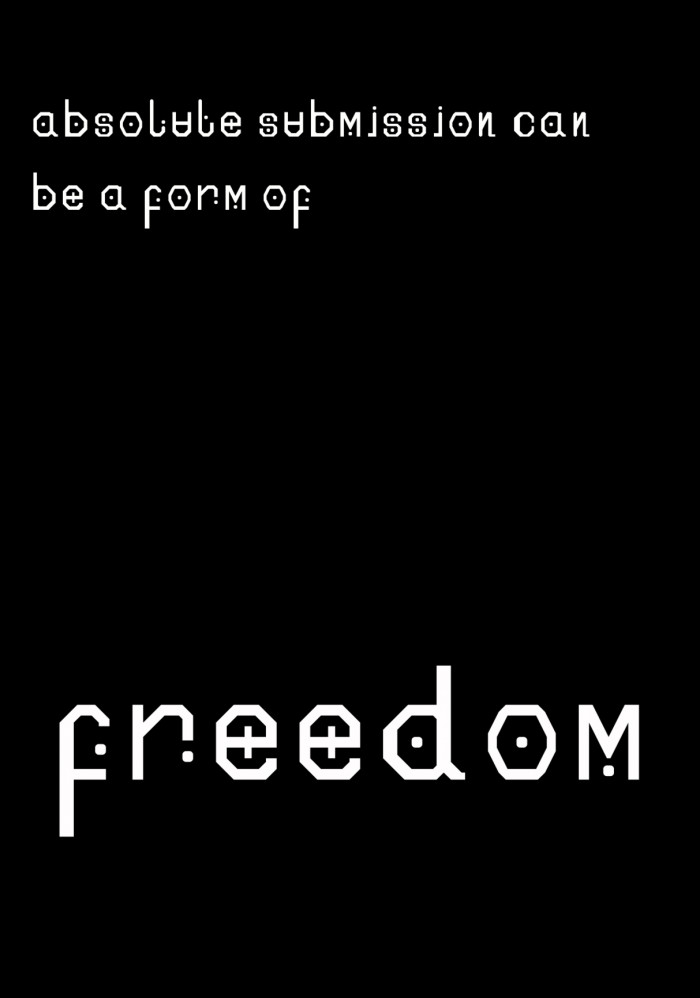
• Here is my first fontstruction coming to you from a graphic design student at UWE Bristol.
This font is based around the theme 'rebirth' and to me rebirth means growth, open-minded, seeing the world in new ways- an awakening.
So I went down the path of spiritual journeys. Throughout lockdown I have been listening to the one and only, Joe Rogan and his podcasts. Many of which discuss the topic of psychedelics and how they have changed peoples perspectives on life - positively. I then took these topics and found my 'Rebirth'
This font represents; psychedelics, trance and being in the state of stupor...